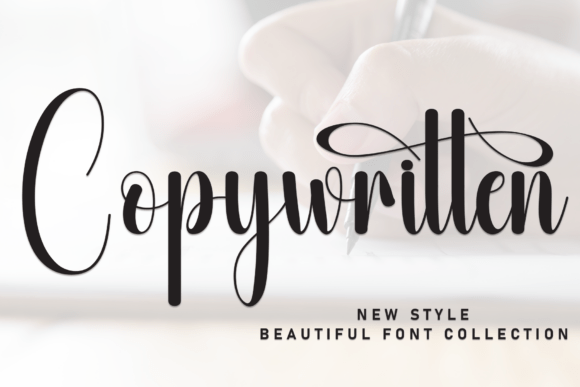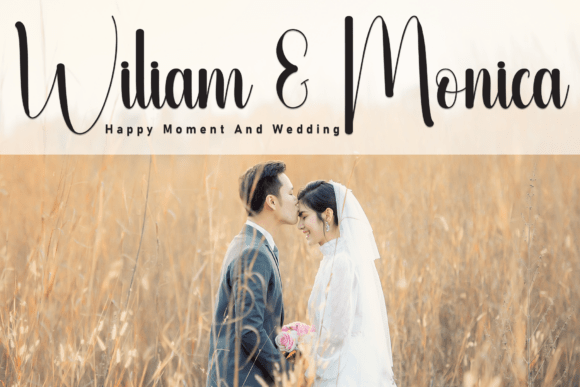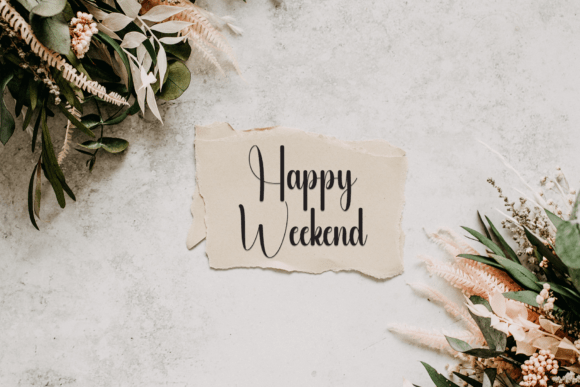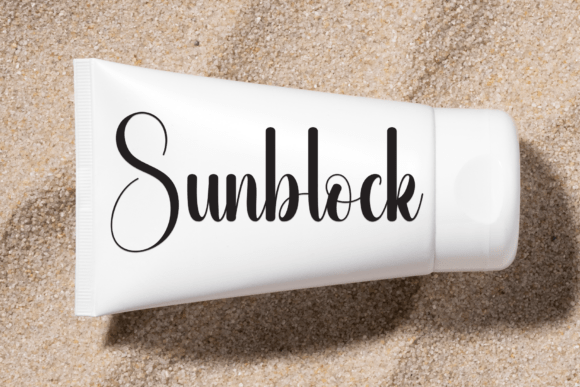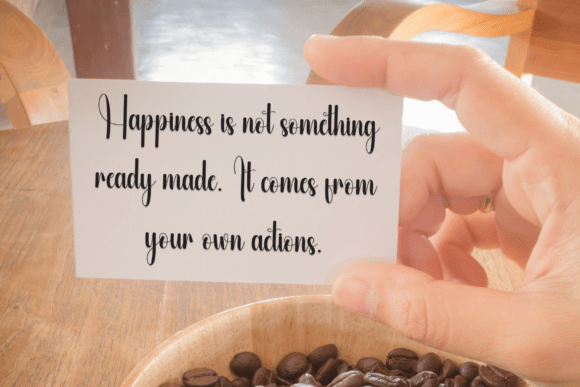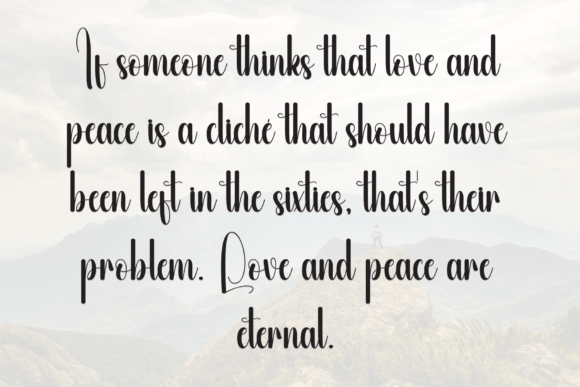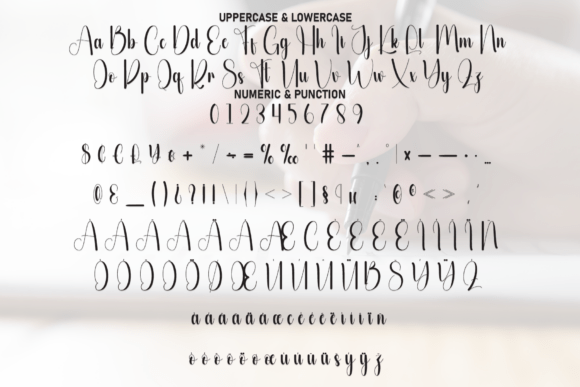
Unlocking the Magic of Handwritten Style: Introducing Copywritten Font
You’ve spent hours brainstorming the perfect concept, pouring over ideas, and perfecting your design. But there’s something missing – that special touch that sets your project apart. For designers, finding the right font can be the difference between a great design and an exceptional one. This is where the Copywritten Font comes in – a stunning handwritten script font that adds a personal, charming touch to any project.
With its flowing curves and natural rhythm, Copywritten Font is the perfect addition to invitations, branding, and social media. Whether you’re aiming for warmth, sophistication, or creativity, this font brings it all to the table. As a designer, you know the importance of a well-chosen font in elevating your work. The Copywritten Font is a valuable tool in your design arsenal, waiting to be unleashed and take your projects to the next level.
Key Features of Copywritten Font
- Unique Characteristics: The font features a unique blend of modern and vintage elements, with intricate details and subtle nuances that make it stand out from other fonts.
Copywritten Font Review
Overall, I’d say Copywritten Font is a decent choice for those looking for a bold, attention-grabbing font. ✨ The font’s unique blend of modern and vintage elements gives it a certain je ne sais quoi that can elevate any design. ✨ The font’s high contrast between thick and thin lines adds to its dynamic feel, making it perfect for headings and titles.
However, there are some limitations to consider. ⚠️ For one, the font’s readability can suffer at smaller font sizes. ⚠️ This means that if you’re planning to use it for body text or in a scenario where the font size is limited, you may need to adjust accordingly. Additionally, the font’s complexity can make it challenging to pair with other fonts, which may limit your design options.
Here are some specific things to keep in mind when working with Copywritten Font:
- Readability suffers at font sizes < 18pt
- May be challenging to pair with other fonts due to its unique style
- Perfect for headings, titles, and other display text
- Unique blend of modern and vintage elements adds visual interest
Overall, I’d recommend Copywritten Font for designers looking to add a touch of sophistication and drama to their designs. While it may not be suitable for every project, it’s a great choice when you need to make a statement.
The Copywritten Font is ideal for:
- Creatives and designers looking for a unique and stylish font.
- Businesses wanting to create professional-looking documents and presentations.
- Anyone looking to add a touch of sophistication to their designs.
Alternatives to Copywritten Font for Designers
Great Vibes is a beautiful, elegant script font that’s perfect for adding a touch of sophistication to your designs. It’s ideal for use in wedding invitations, luxury branding, and other high-end projects.
Compared to Copywritten Font, Great Vibes has a more refined and sophisticated look, making it a great choice for projects that require a sense of elegance and refinement.